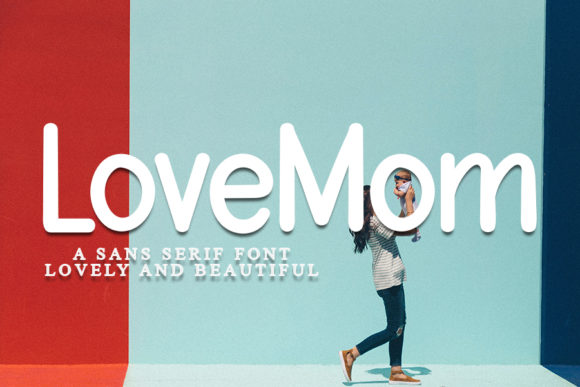
Step into the realm of rustic charm with LoveMom, an enchanting sans serif font that oozes warmth and simplicity. Inspired by the cozy ambiance of farmhouses, LoveMom captures the essence of countryside living, bringing a touch of serenity and nostalgia to your creative projects.
Immerse yourself in the beauty of LoveMom's clean and rounded curves, each letterform meticulously crafted to exude elegance and charm. Its unassuming presence lends a timeless appeal to your designs, making it the perfect choice for farmhouse signs, branding, packaging, and more.
With LoveMom, the possibilities are endless. Create heartfelt wedding invitations that capture the rustic romance of a countryside celebration. Design charming posters for your local farmers market, evoking the warmth of fresh produce and artisanal goods. Craft eye-catching social media graphics that transport your followers to a tranquil oasis of simplicity.
LoveMom's versatility extends beyond the digital realm. Unleash your creativity and explore its boundless potential in physical spaces. Transform ordinary signage into works of art, adding a touch of rustic flair to your home décor or retail displays. With LoveMom, every surface becomes a canvas for your imagination.